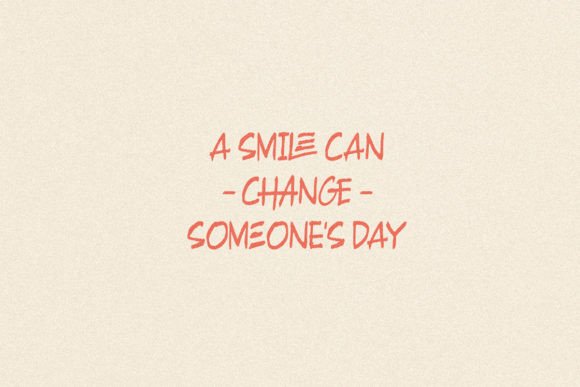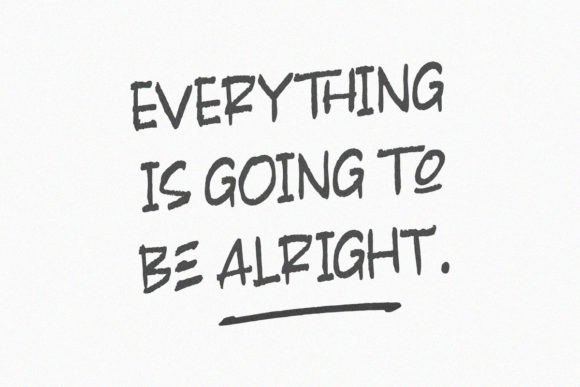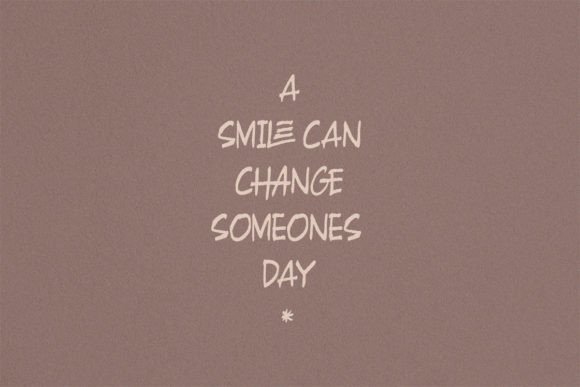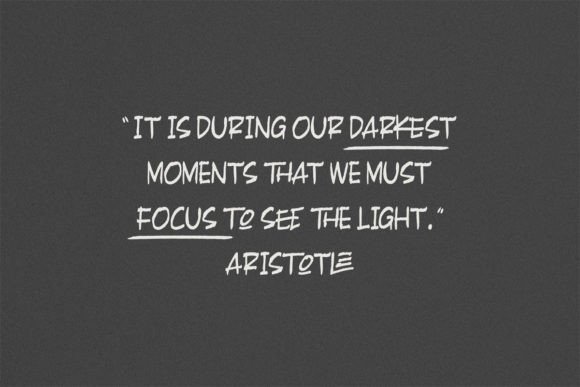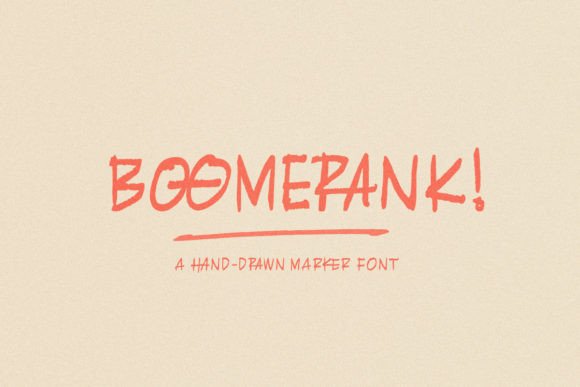
Introducing Boomerank Font: The Ultimate Dry Marker Handwriting Font
Are you a designer or crafter looking for a unique and creative font to add a personal touch to your projects? Look no further than Boomerank Font, a stunning dry marker handwriting font that’s perfect for a wide range of applications. In this article, we’ll dive into the features and benefits of Boomerank Font, and explore how it can elevate your designs to the next level.
What is Boomerank Font?
Boomerank is a creative dry marker handwriting font that’s designed to mimic the natural, imperfect look of handwriting with a dry marker. The font features a unique, hand-crafted aesthetic that’s perfect for projects that require a personal and human touch. With its bold, expressive lines and subtle imperfections, Boomerank Font is sure to add a touch of personality to any design.
Boomerank Font is incredibly versatile, making it perfect for a wide range of projects, including:
- Logotypes: Create a unique and memorable logo for your brand with Boomerank Font.
- Comics: Add a touch of personality to your comic strips and graphic novels with this fun and expressive font.
- Headlines: Make your headlines stand out with Boomerank Font’s bold, eye-catching design.
- Invitations: Create beautiful, one-of-a-kind invitations for weddings, parties, and other special events.
- Quotes: Add a touch of inspiration to your quote designs with Boomerank Font’s unique and uplifting aesthetic.
- Menu Design: Give your restaurant or cafe menu a personal touch with Boomerank Font.
- Branding: Use Boomerank Font to create a consistent and recognizable brand identity.
- Clothing: Design unique and stylish apparel with Boomerank Font’s bold and expressive design.
- Print Ads: Create eye-catching print ads that grab attention and leave a lasting impression.
Key Features of Boomerank Font
So what sets Boomerank Font apart from other fonts? Here are some of its key features:
- Handwritten with a dry marker: Boomerank Font features a unique, hand-crafted aesthetic that’s reminiscent of handwriting with a dry marker.
- Natural and imperfect: The font features subtle imperfections and variations that give it a natural, human touch.
- Bold and expressive: Boomerank Font is perfect for making a statement, with its bold, eye-catching design.
- Easy to read: Despite its bold and expressive design, Boomerank Font is easy to read and understand.
Why Choose Boomerank Font?
So why should you choose Boomerank Font for your next project? Here are just a few reasons:
- Unique and creative: Boomerank Font is a one-of-a-kind font that’s sure to add a touch of personality to your designs.
- Versatile: The font is perfect for a wide range of projects, from logotypes to print ads.
- High-quality: The font is designed to high-quality standards, ensuring that it looks great in any design.
In conclusion, Boomerank Font is a creative and versatile dry marker handwriting font that’s perfect for designers and crafters who want to add a personal touch to their projects. With its unique, hand-crafted aesthetic and bold, expressive design, Boomerank Font is sure to elevate your designs to the next level. So why wait? Download Boomerank Font today and start creating stunning designs that stand out from the crowd!
Tips for Using Boomerank Font
Here are a few tips for getting the most out of Boomerank Font:
- Experiment with different sizes and colors: Boomerank Font looks great in a variety of sizes and colors, so don’t be afraid to experiment and find the perfect combination for your design.
- Pair with other fonts: Boomerank Font pairs well with other fonts, so try combining it with a sans-serif font for a bold and modern look.
- Use it sparingly: While Boomerank Font is a beautiful font, it can be overwhelming if used too much. Use it sparingly to add a touch of personality to your design.
By following these tips and using Boomerank Font in your designs, you’ll be able to create stunning and unique projects that showcase your creativity and style.